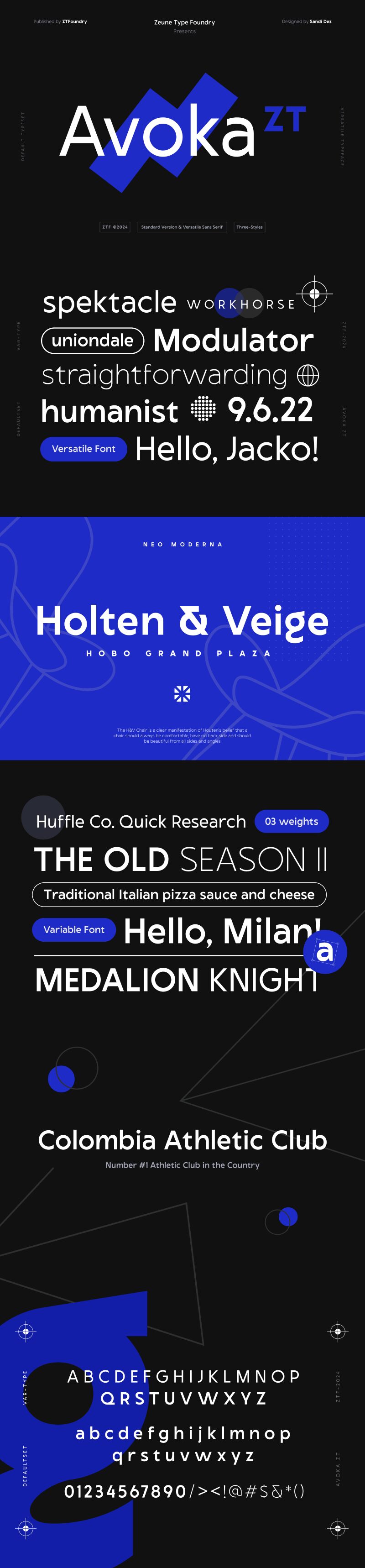
Avoka ZT font family by Sandi Dez is a free sans serif font family with 3 font styles inspired by precision and technology. Geometric shapes balance and complement one another with beautifully fluid character structures. Squares, triangles, and circles are the dominant elements controlling every aspect from proportions to angles to endings. It is professional, modern, and demands strong first impressions.
The typeface is spectacular in every sense, making all its projects a wonder to admire. Use it for animation and movie posters, features, slides, business cards, photo albums, and artwork for collectibles. Benefit hugely with eye-catching company profiles, brochures, presentations, price guides, labels, etc.